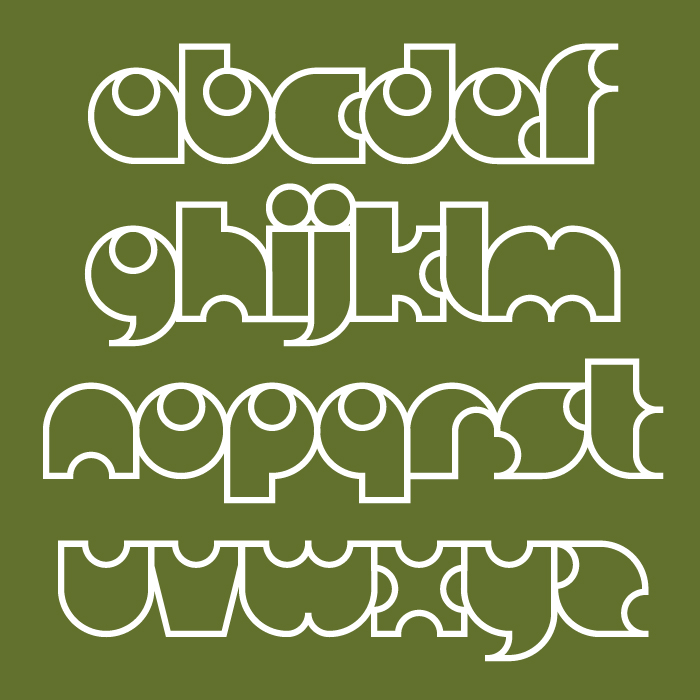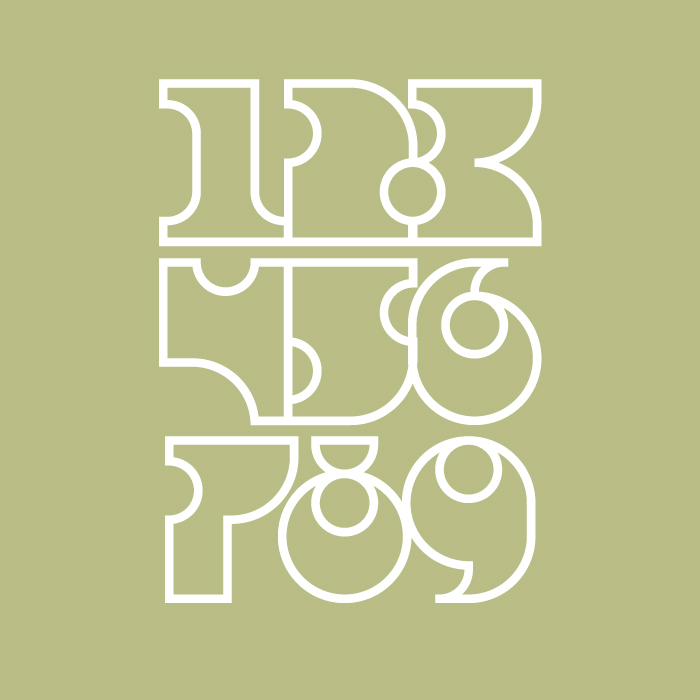
nice!
Precious, remembering old times! Congrats on the TP, compa!
Very nice, almost feels reminiscent of an olive
This looks very nice, you might need to check í, Ů, and ů as they seem to be missing accents
love the capital A it is reminiscent Among Us crewmate
@BWM Thanks, I have added those.
This is perfect for a lot of things :D